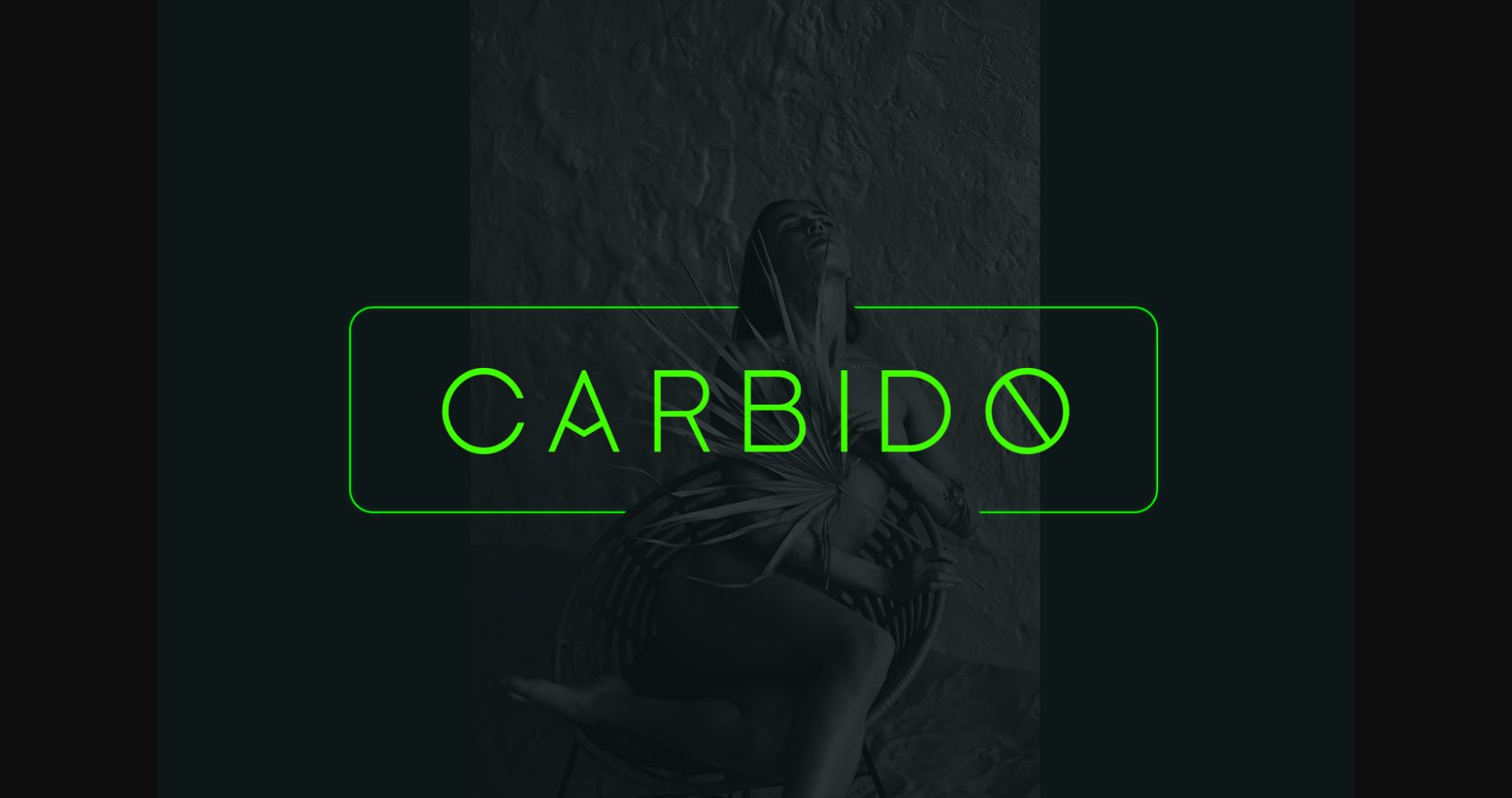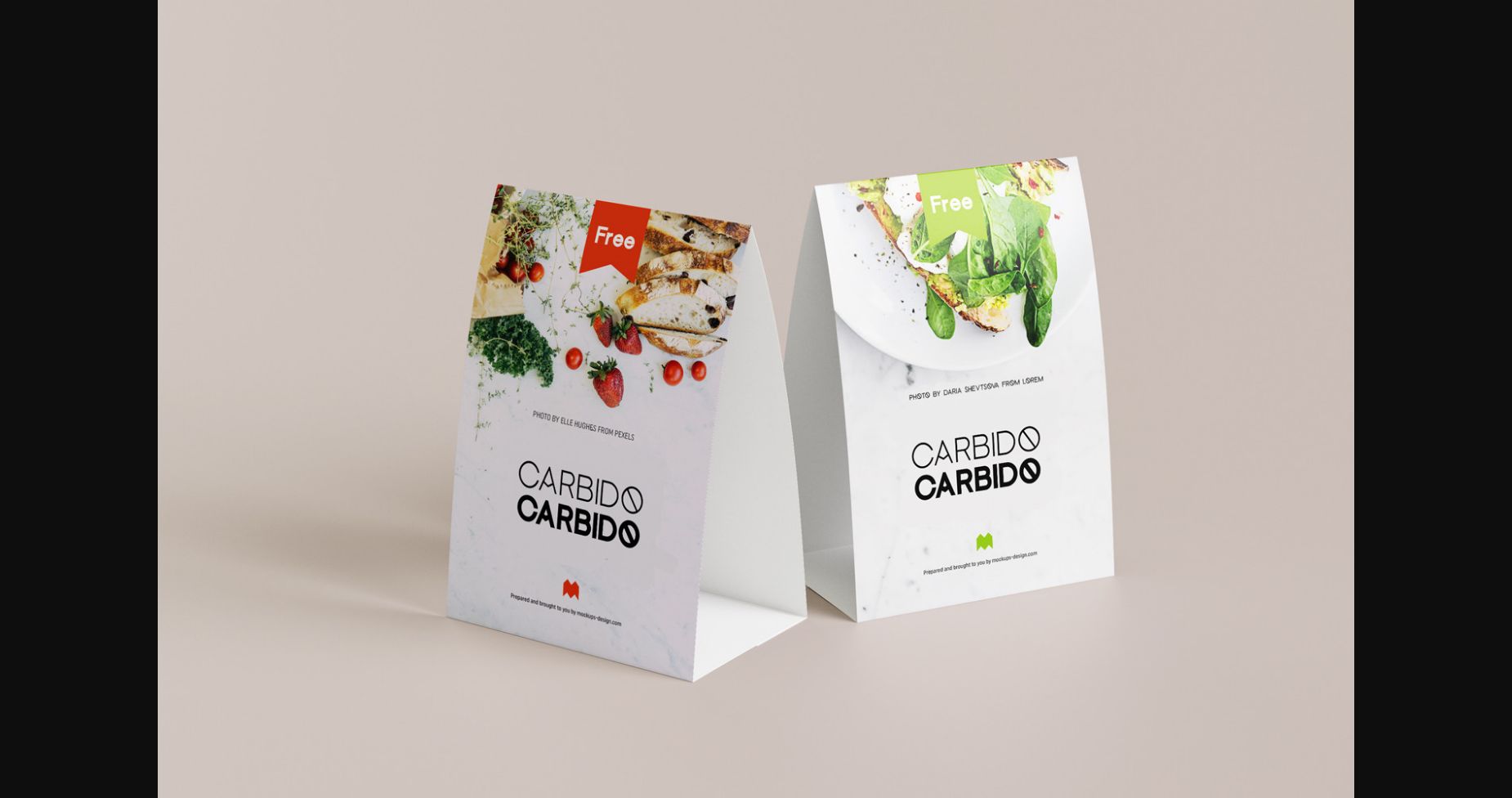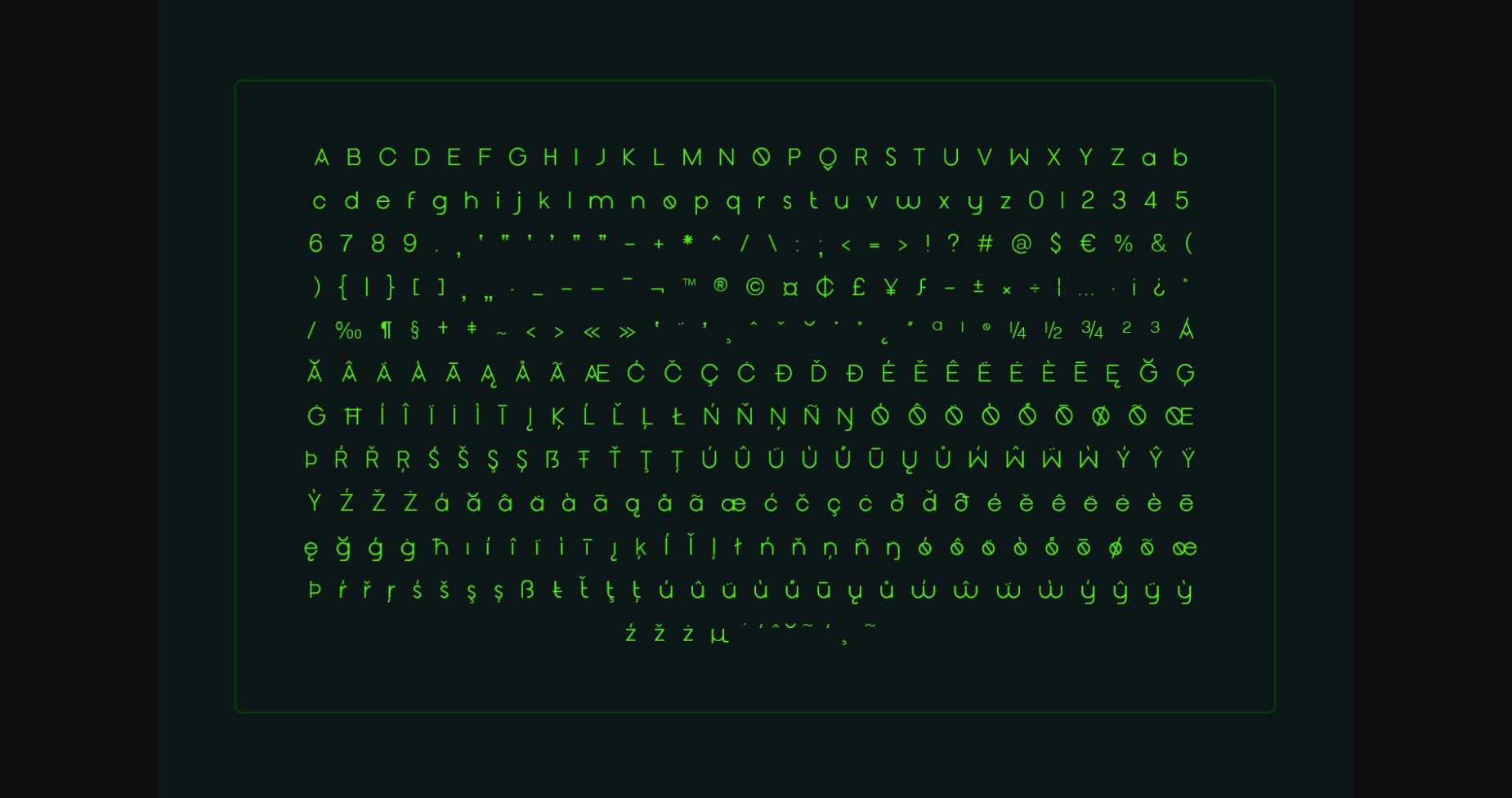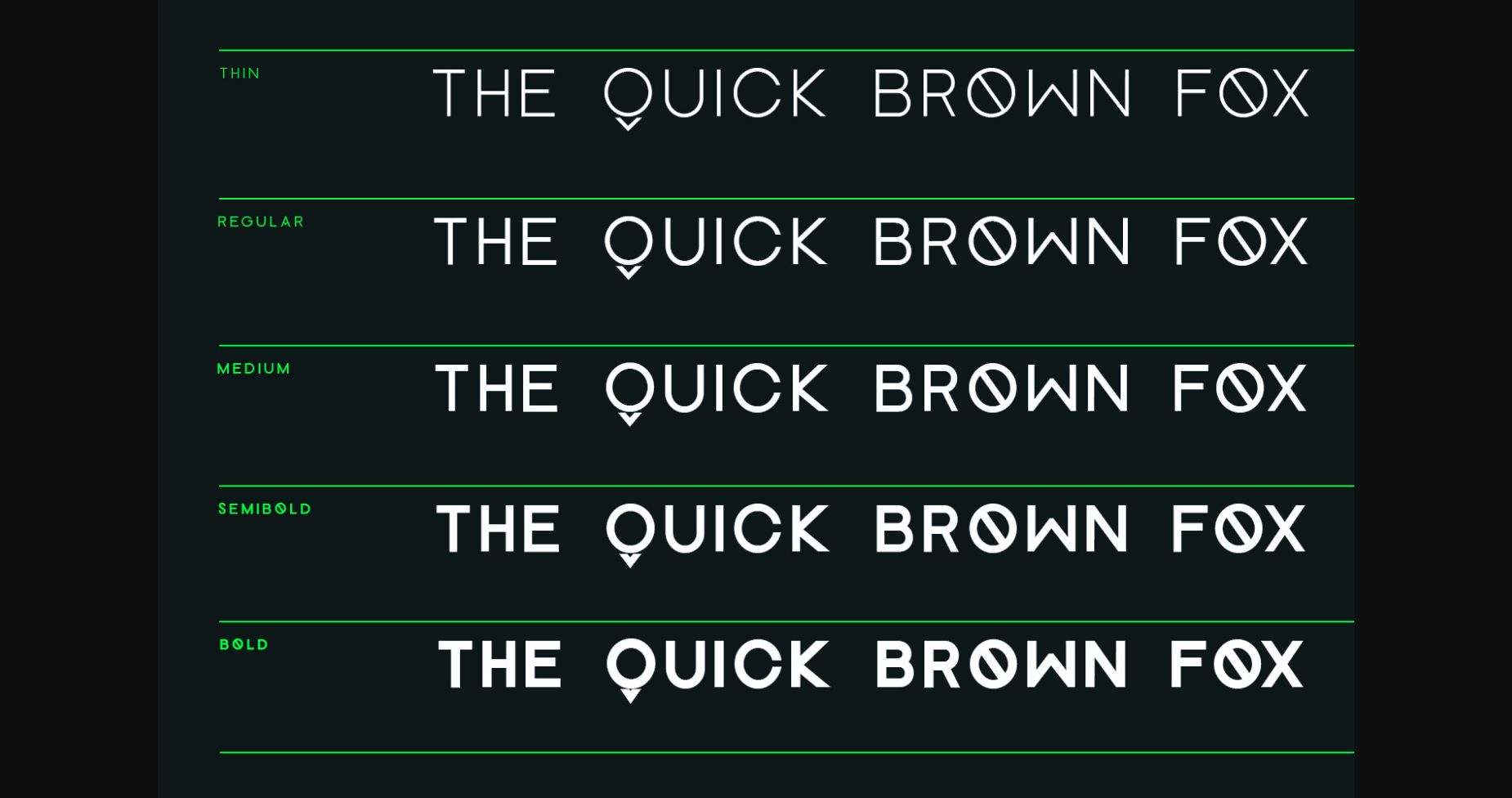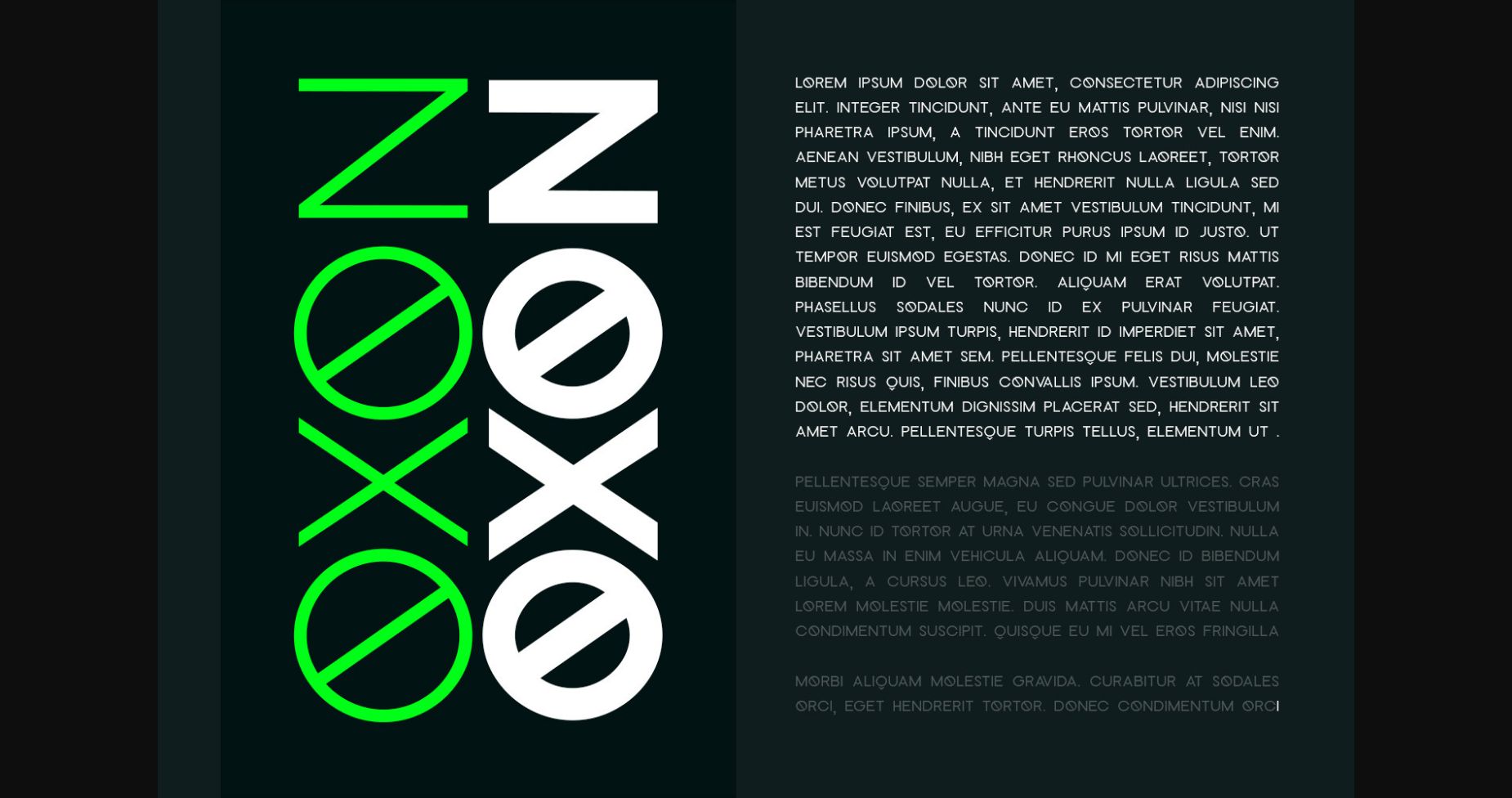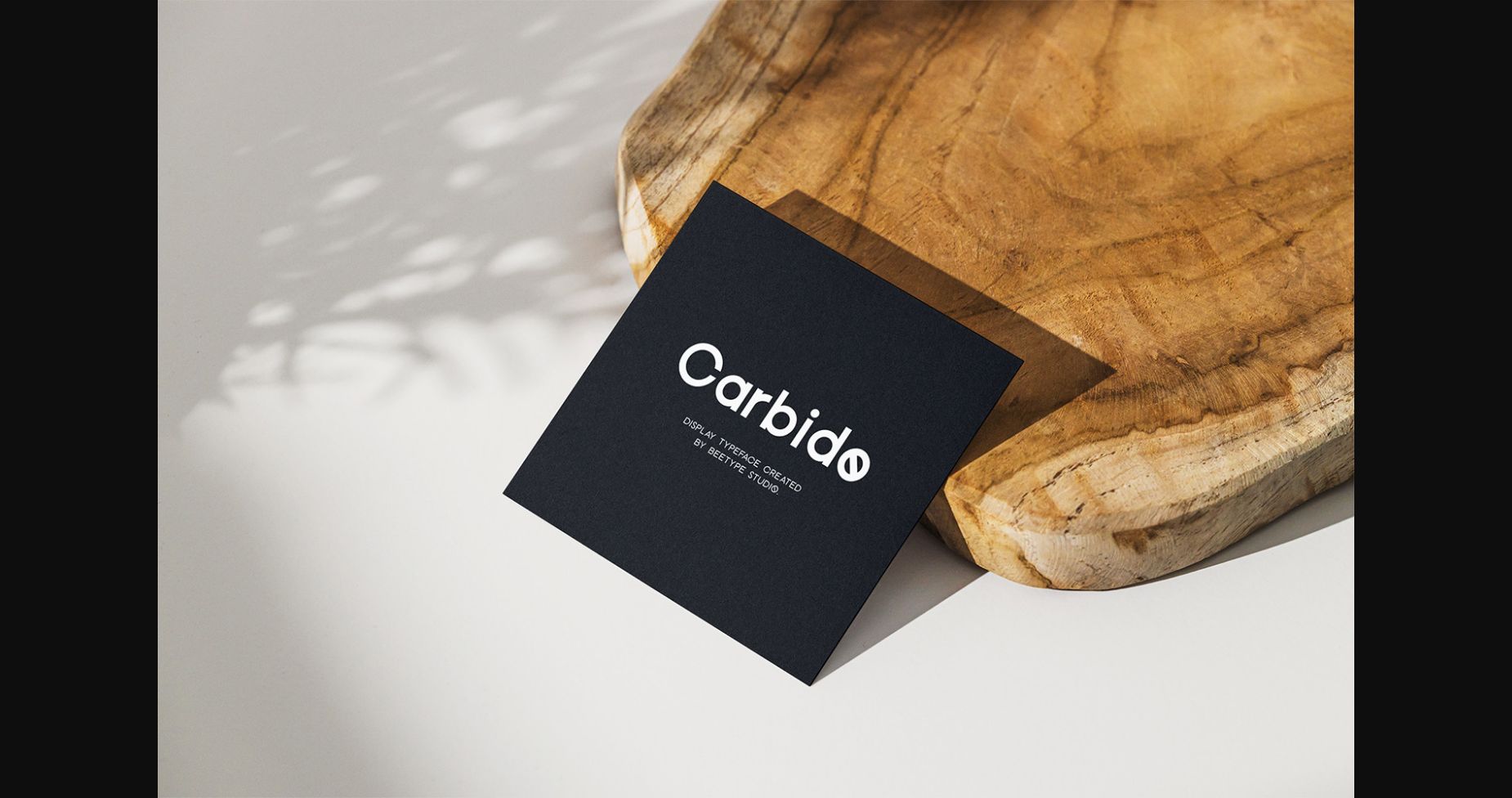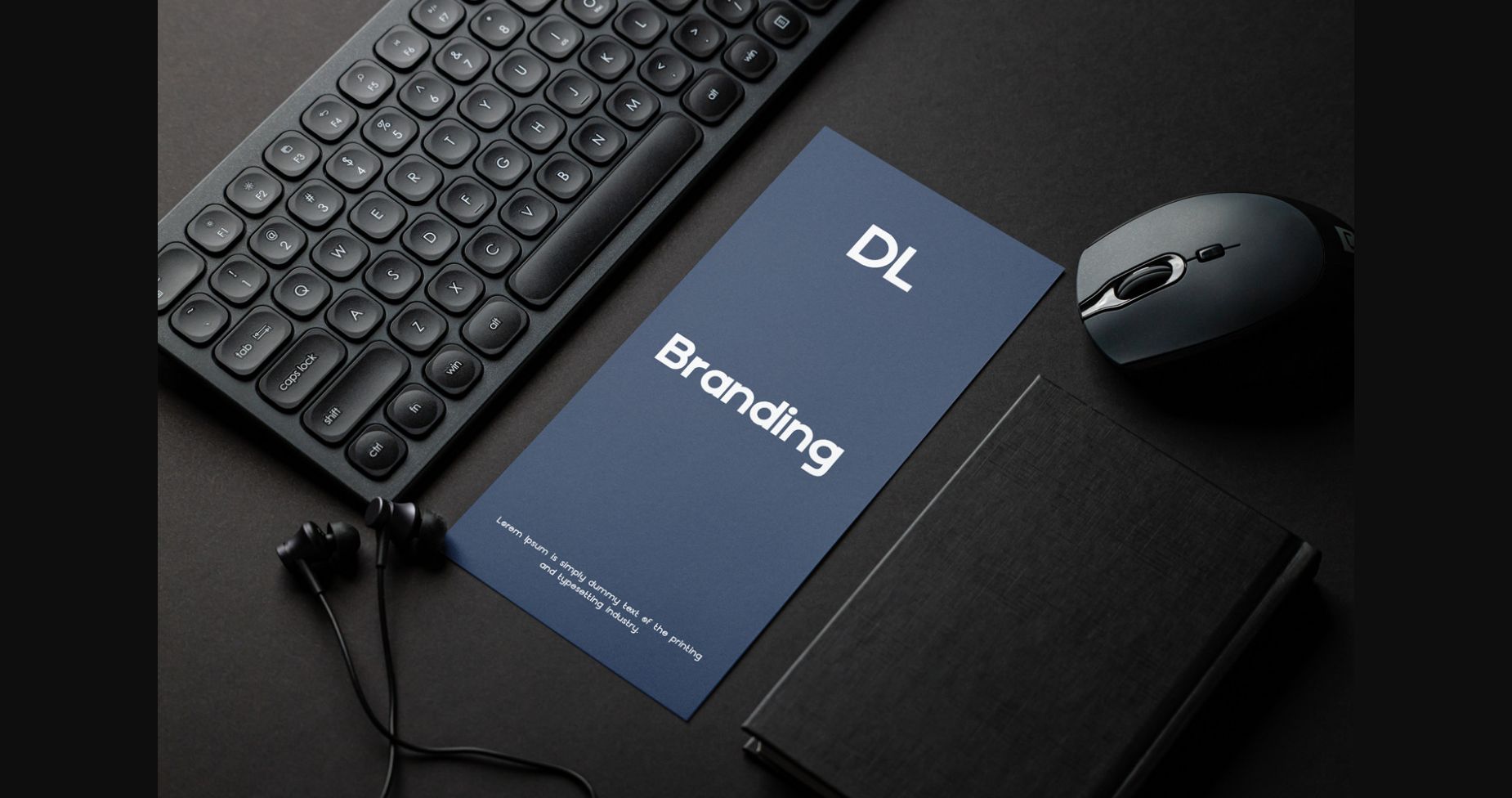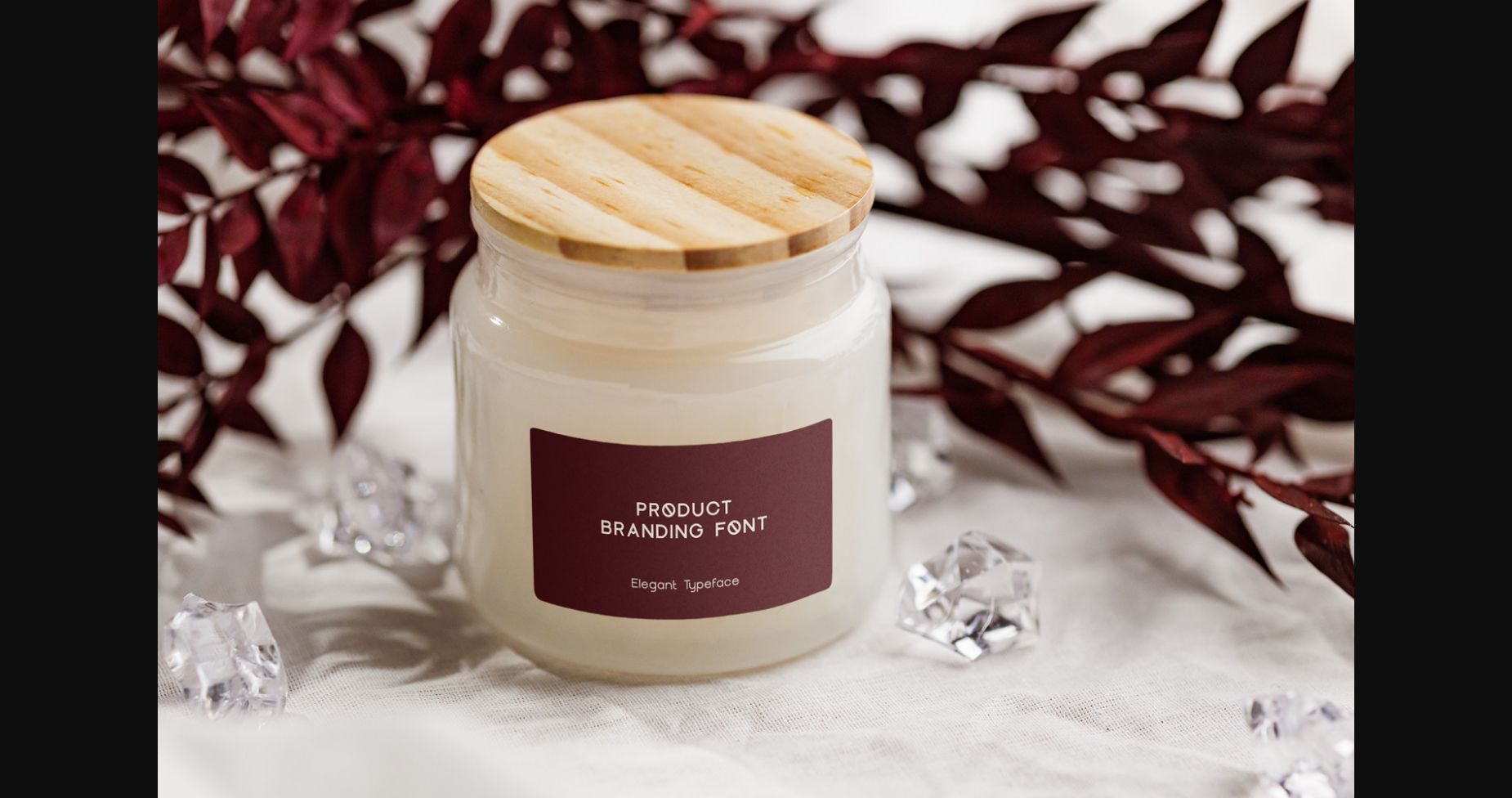
Carbido Font
About Carbido Font
Carbido is a unique and modern sans serif font perfect for headlines, big text, branding, logotypes & display usage. The typeface will add a neat and sleek accent to each of your beautiful crafty ideas! It has a dependable and uncompromising style, with controlled letter forms and modern touches. There’s a good mix of strong lines and smooth curves. Each font in the family can be used independently, and each is lively and authoritative in its own right.
The various weights allow you to experiment with a wide range of applications, offering any project a truly modern vibe.